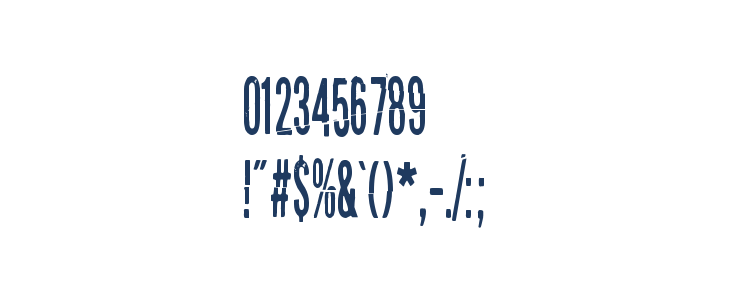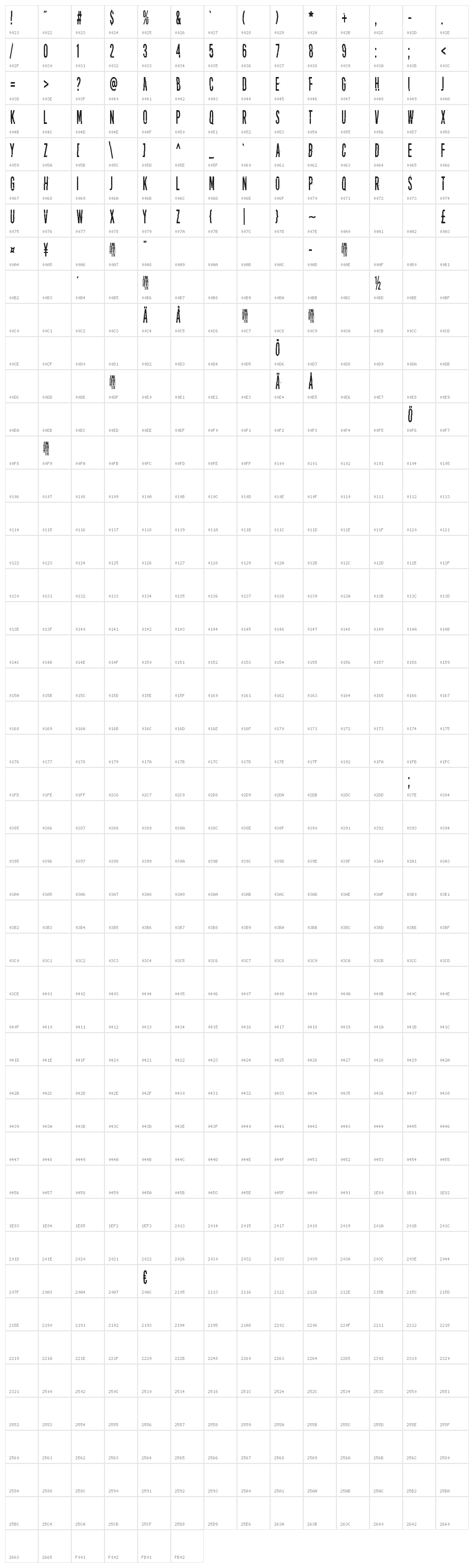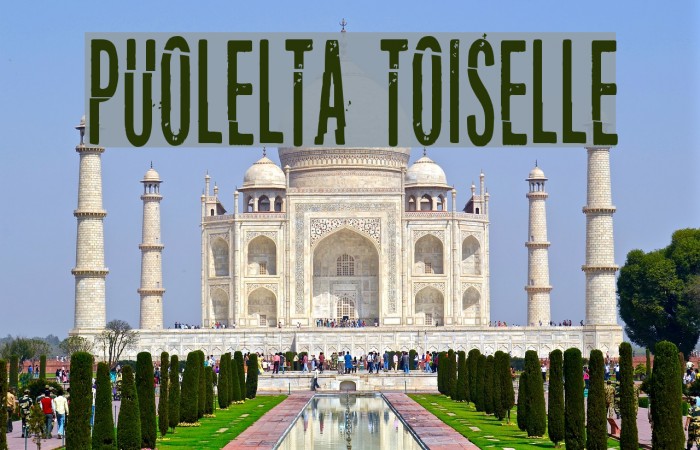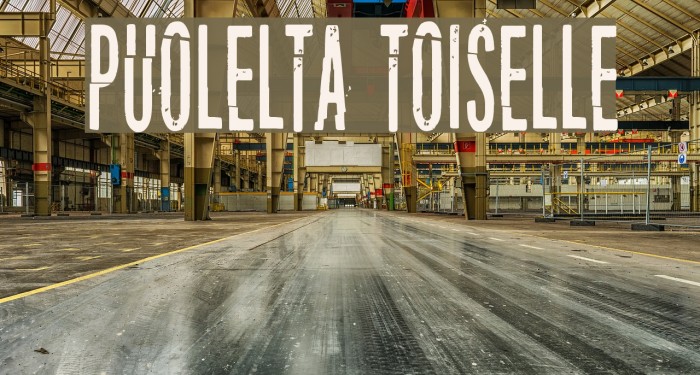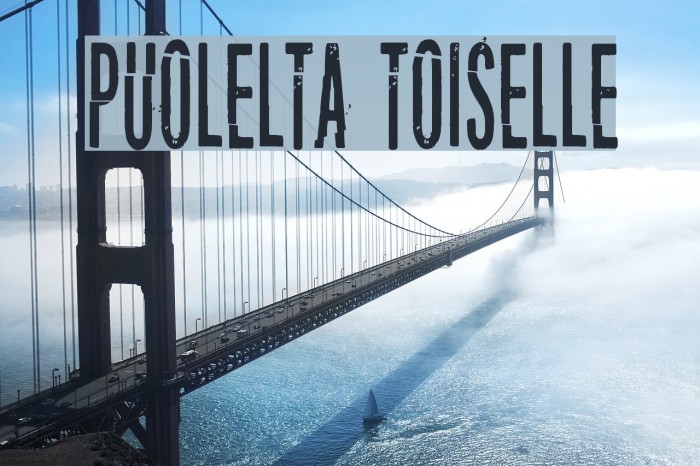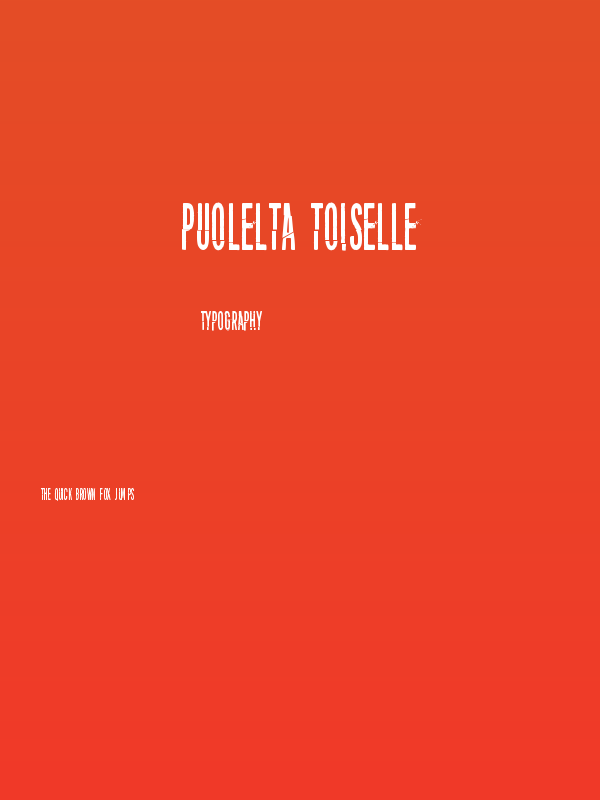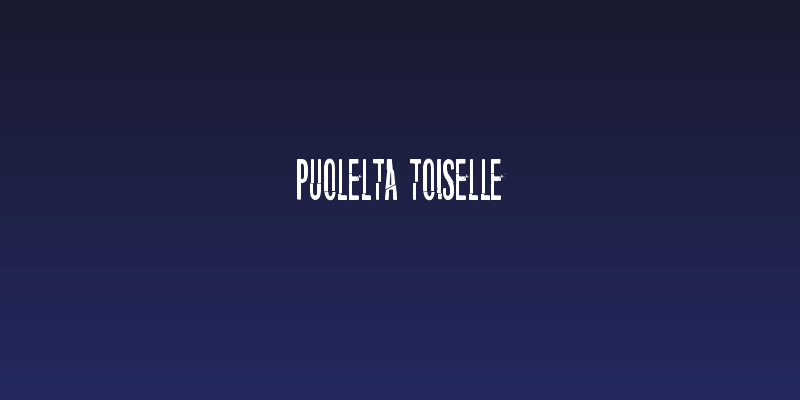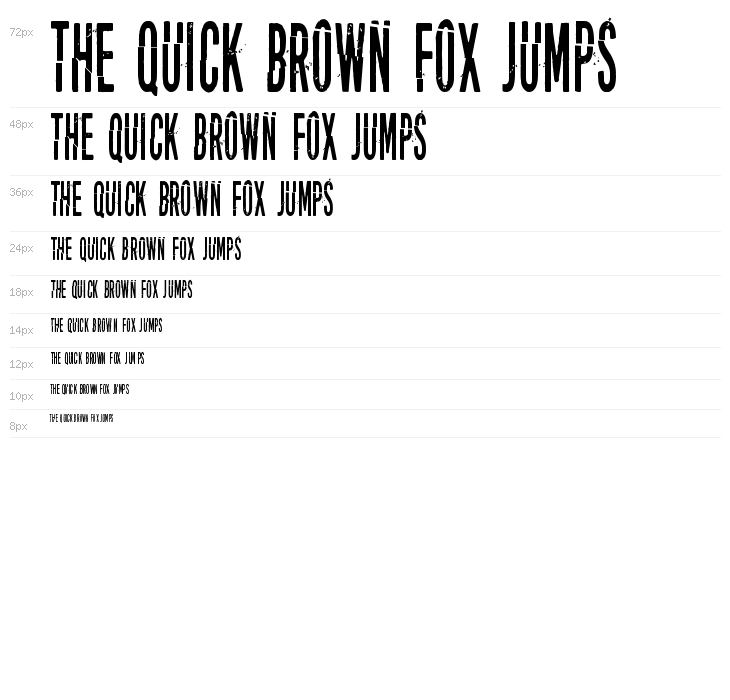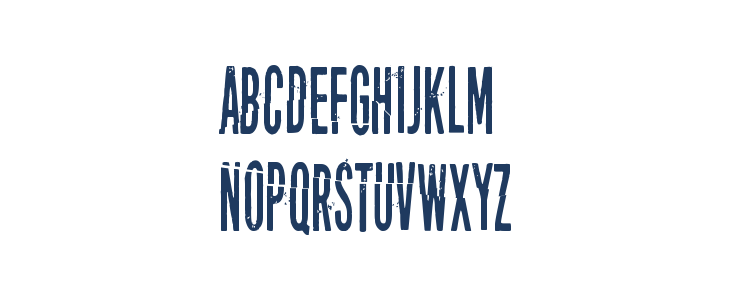
Puolelta toiselle Font
Puolelta toiselle Description
This font features a distressed, grunge style with a bold and impactful presence. The uppercase letters are tall and narrow, giving a condensed appearance. The texture is rough, with intentional imperfections that add a vintage, worn look. The numbers and special characters maintain this distressed aesthetic, making the font suitable for projects that require a rugged, edgy feel. The overall design is eye-catching and can stand out in various creative applications.
| Overall Style | Vintage, Grunge |
| Proposed Projects | Ideal for posters, album covers, branding for edgy products, or any project needing a vintage, distressed look. |